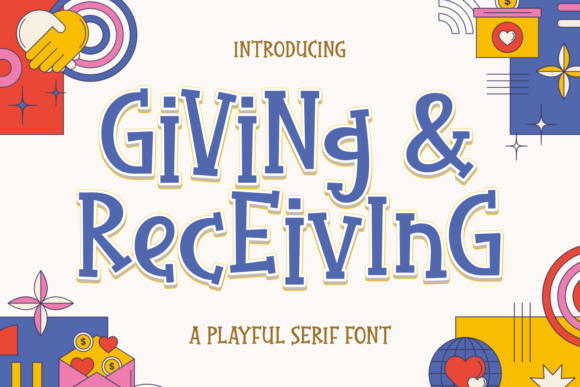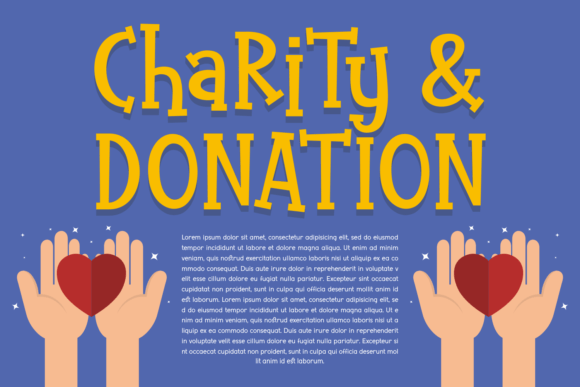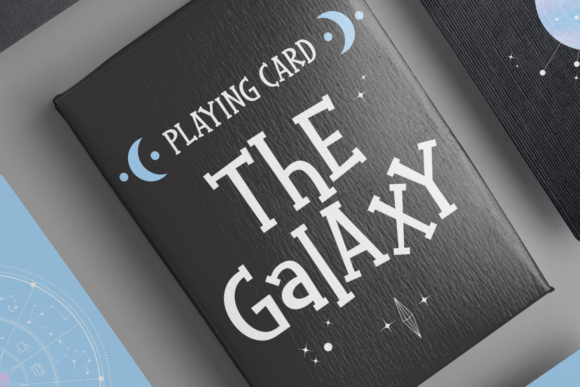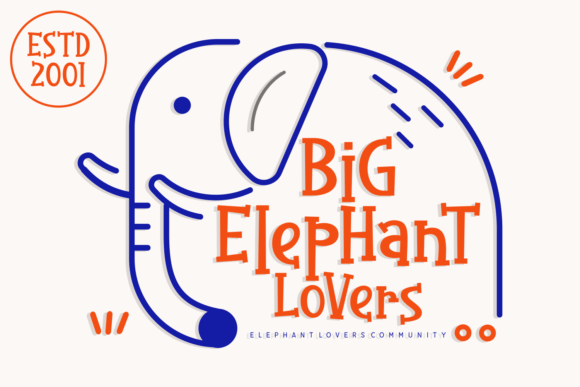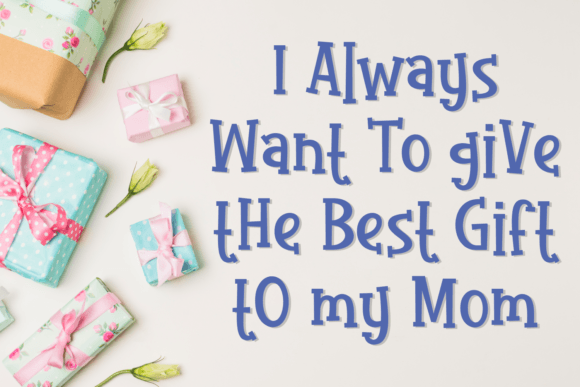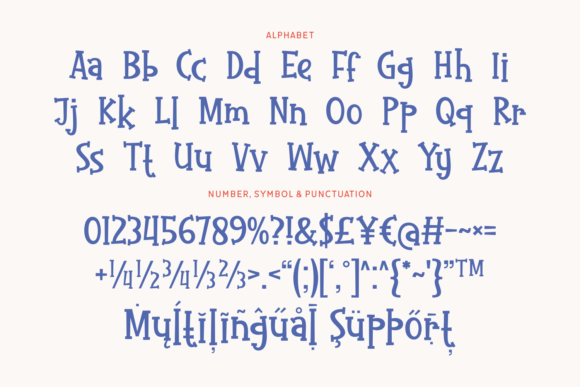
Giving & Receiving
Giving & Receiving: A Fun and Jolly Slab Serif Font
Giving & Receiving is a fun and jolly slab serif font that brings playfulness to any design. This cute and refreshing typeface is perfect for various creative projects, from cards and posters to digital designs and kids’ fabric prints.
Key Features of Giving & Receiving
• Fun Design: Offers a playful and engaging look.
• Jolly Character: Brings cheerful energy to designs.
• Cute Style: Features charming letterforms.
• Refreshing Appeal: Adds a fresh and lively touch.
Best Uses for Giving & Receiving
Thanks to its playful characteristics, Giving & Receiving works especially well for:
When using Giving & Receiving in your designs, keep these tips in mind:
• Try it for headlines or short text to showcase its fun personality.
• Use different sizes to highlight its playful features.
• Let its jolly character bring life to children’s designs.
• Take advantage of its refreshing style for creative projects.
To sum up, Giving & Receiving is an excellent choice for designers seeking a fun and jolly slab serif font. Its playful nature makes it perfect for projects that need a touch of cheerfulness. Whether you’re creating cards, designing posters, or developing kids’ products, Giving & Receiving offers the perfect blend of cuteness and creativity.
Furthermore, Giving & Receiving’s distinctive design allows it to shine in contexts where joy and playfulness are key. For instance, from greeting cards to children’s designs, this font can lift your projects with its cheerful style. Also, its fun yet readable appearance works particularly well in designs that aim to create a happy, engaging impact.
In conclusion, Giving & Receiving truly captures the essence of fun design in slab serif typography. Its versatility across different applications shows how well it can serve various creative needs. Therefore, for those wanting to add a touch of jolly charm to their work, Giving & Receiving can enhance any design with its unique style. Ultimately, it’s perfect for designers aiming to make a fun, refreshing impact across playful creative projects.